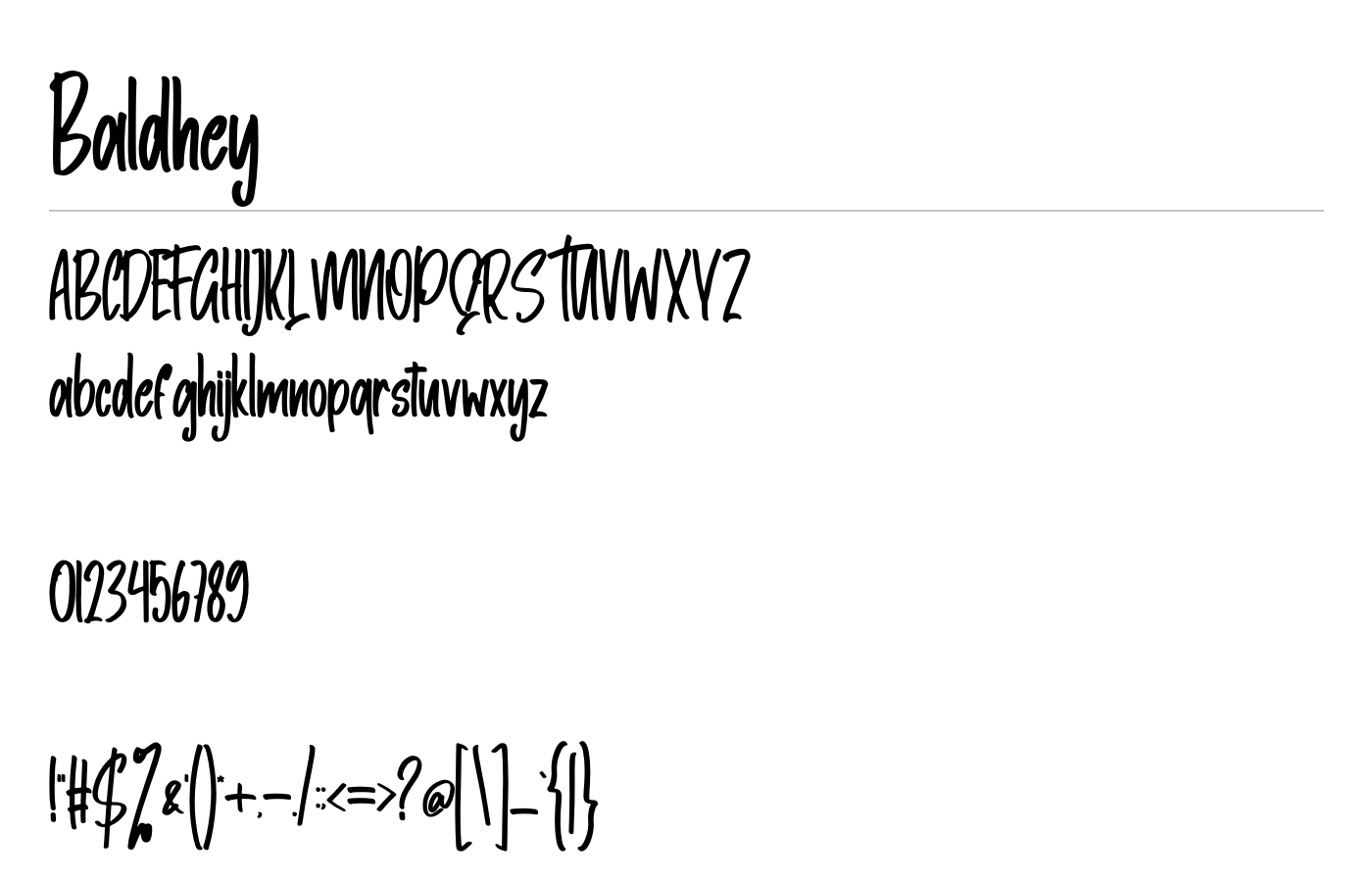
Baldhey is a playful and casual handwritten sans serif font with a tall, narrow structure and light weight. Its lively, irregular strokes and high x-height give it an energetic, informal feel, making it ideal for creative projects, branding, and headlines that want to convey friendliness and approachability. This font works well in designs needing a personal, handwritten touch without sacrificing readability.
Baldhey Font
About Baldhey Font